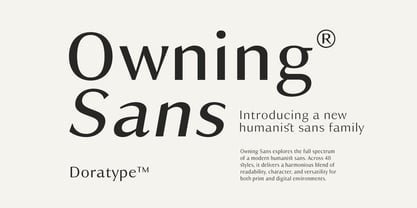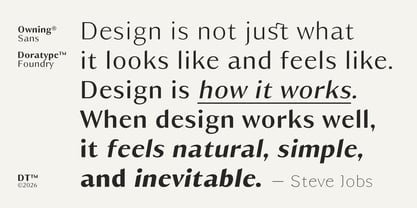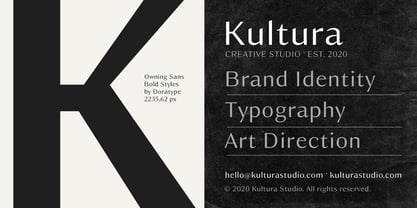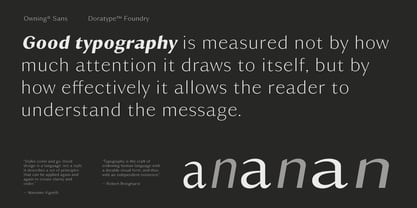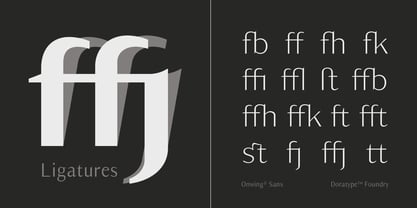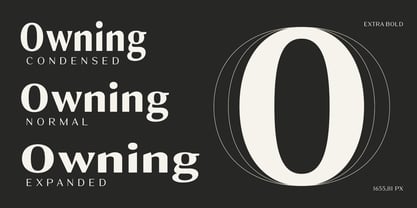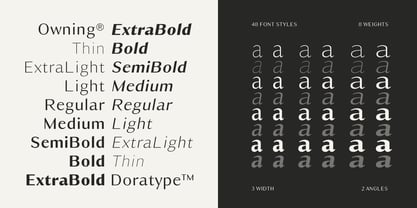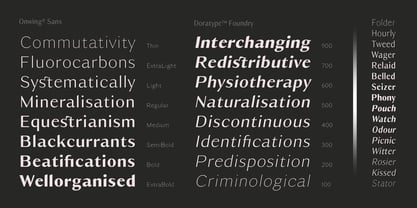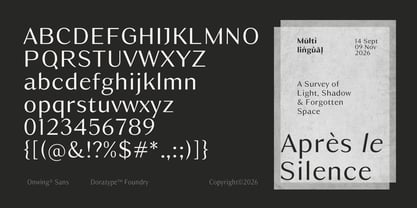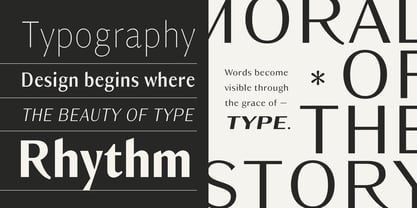
Owning Sans
La famille de polices Owning Sans a été conçue par Zahratul Laila et publiée par Dora Typefoundry. Owning Sans contient 48 styles et options de package familial. En savoir plus sur cette famille
Owning Sans presents a modern typographic character that combines elegance, cleanliness, and humanism in one look. The letterforms are sleek and balanced in proportion, creating a professional yet warm and easy-to-read feel. The use of subtle curves on some characters provides a soft touch, while the terminal details and line contrast create a visual identity.
This typeface is designed for both digital and print visuals, making it flexible in various design contexts, from branding, editorial, posters, and even application interfaces. The combination of minimalism and modern aesthetics allows it to convey a premium feel without compromising readability. Overall, Owning Sans reflects a sophisticated, functional, and characterful approach to typographic design.